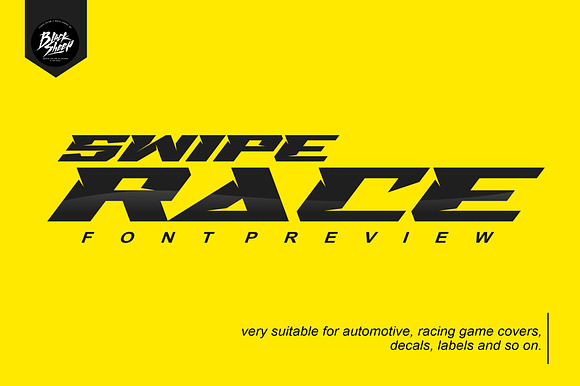
Swipe Race font
Swipe Race consists of a racing style with sharp lines with a verified tilt angle that will emphasize a modern and sporty style.
Swipe Race very suitable for automotive magazine covers, racing game covers, logos & branding, product design, labels and so on.
Swipe Race font by Blacksheep studio fits naturally into Branding, posters, packaging, typography.